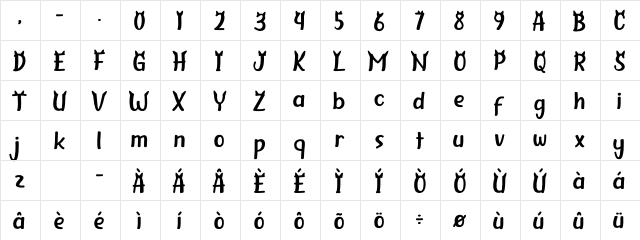
Cattino Regular
| Designer | Andri Ardianto + Madatype Studio |
Design Context for Cattino Typeface
Cattino is a composed and adaptable typeface that performs quietly and consistently across a wide range of design contexts.